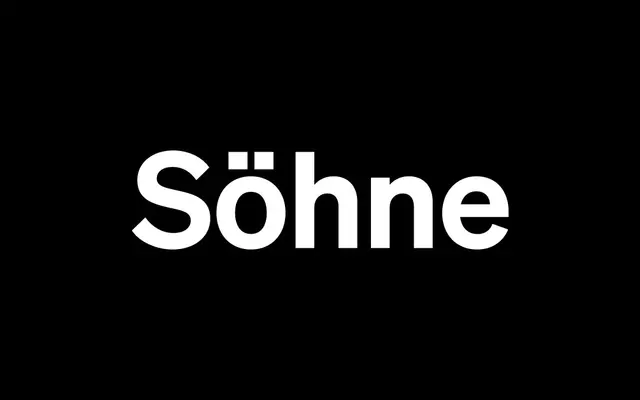
Söhne
Klim Type Foundry · Kris Sowersby · 2019
A grotesque sans rooted in Akzidenz and Standard Medium, balancing analogue warmth with quiet authority for editorial and tech brands.
A neo-grotesque by Kris Sowersby drawn from the Standard Medium signage on Unimark's New York City Subway wayfinding and the wider Akzidenz-Grotesk lineage, with apertures slightly more open than Helvetica's and joints subtly thinned. Eight weights run from Extraleicht to Extrafett with Buch and Kräftig as the workhorse text cuts, and the system extends into Söhne Breit (wide), Söhne Schmal (condensed) and Söhne Mono. Used widely across editorial, tech and fashion when the brief calls for precise neutrality without sterility.
Klim classifies it as Lineal: Grotesque; described as the memory of Akzidenz-Grotesk framed through the reality of Helvetica, drawing on the Standard Medium used in Unimark's NYC Subway wayfinding.
ExtraleichtLeichtBuchKräftigHalbfettDreiviertelfettFettExtrafett